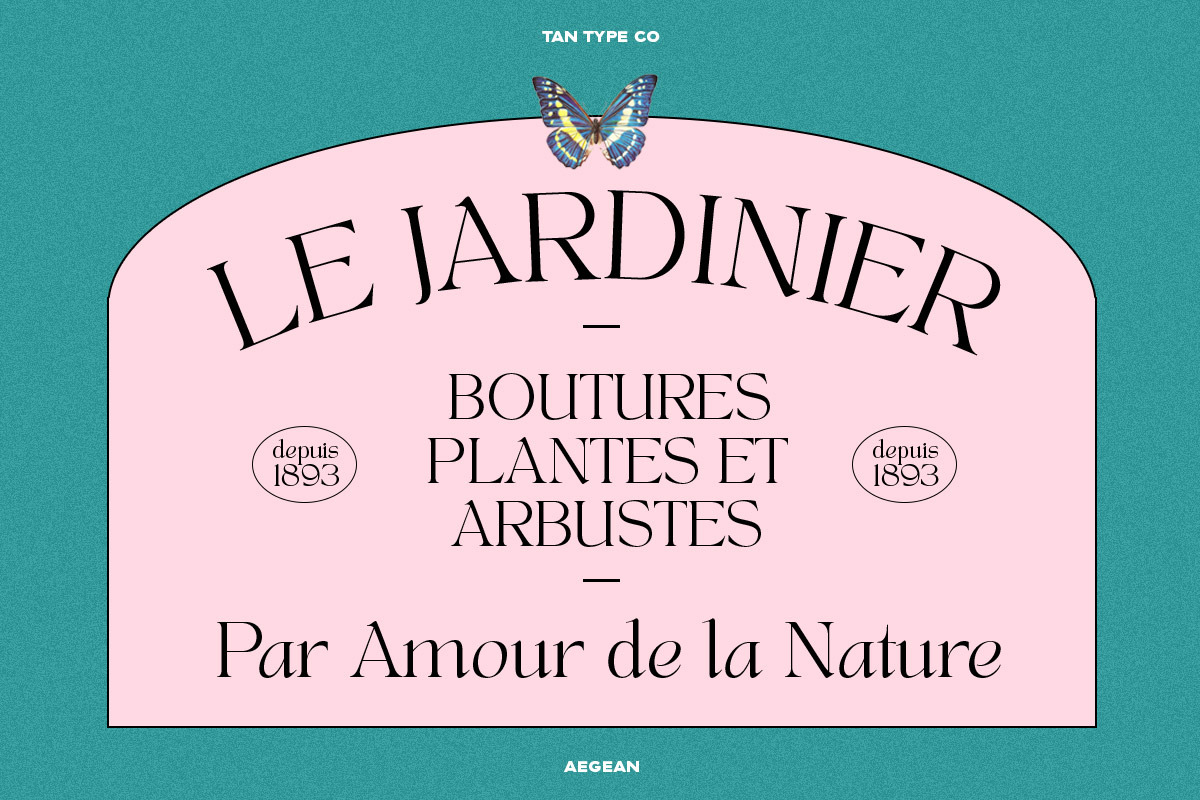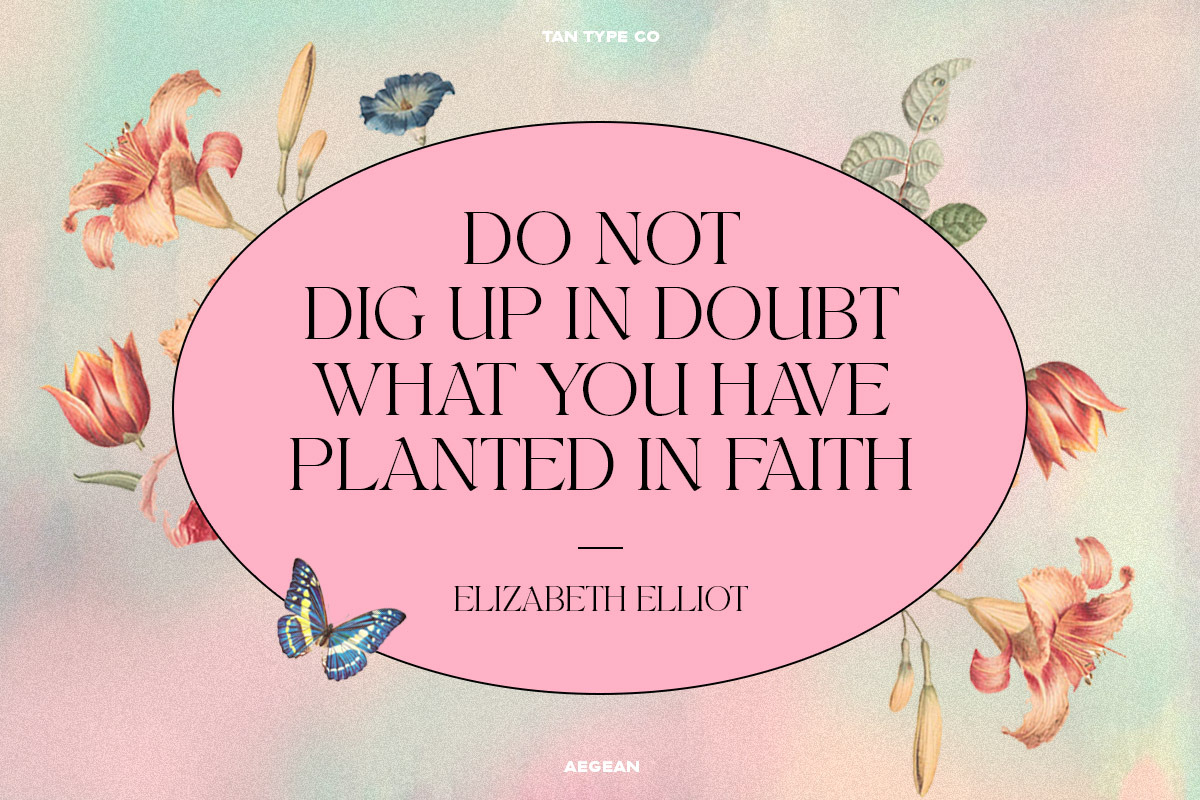
Tan Aegean is an elegant display serif that balances classic sophistication with a subtle touch of playfulness. Its versatile design makes it perfect for a wide range of creative projects, from branding and editorial layouts to packaging and social media graphics.